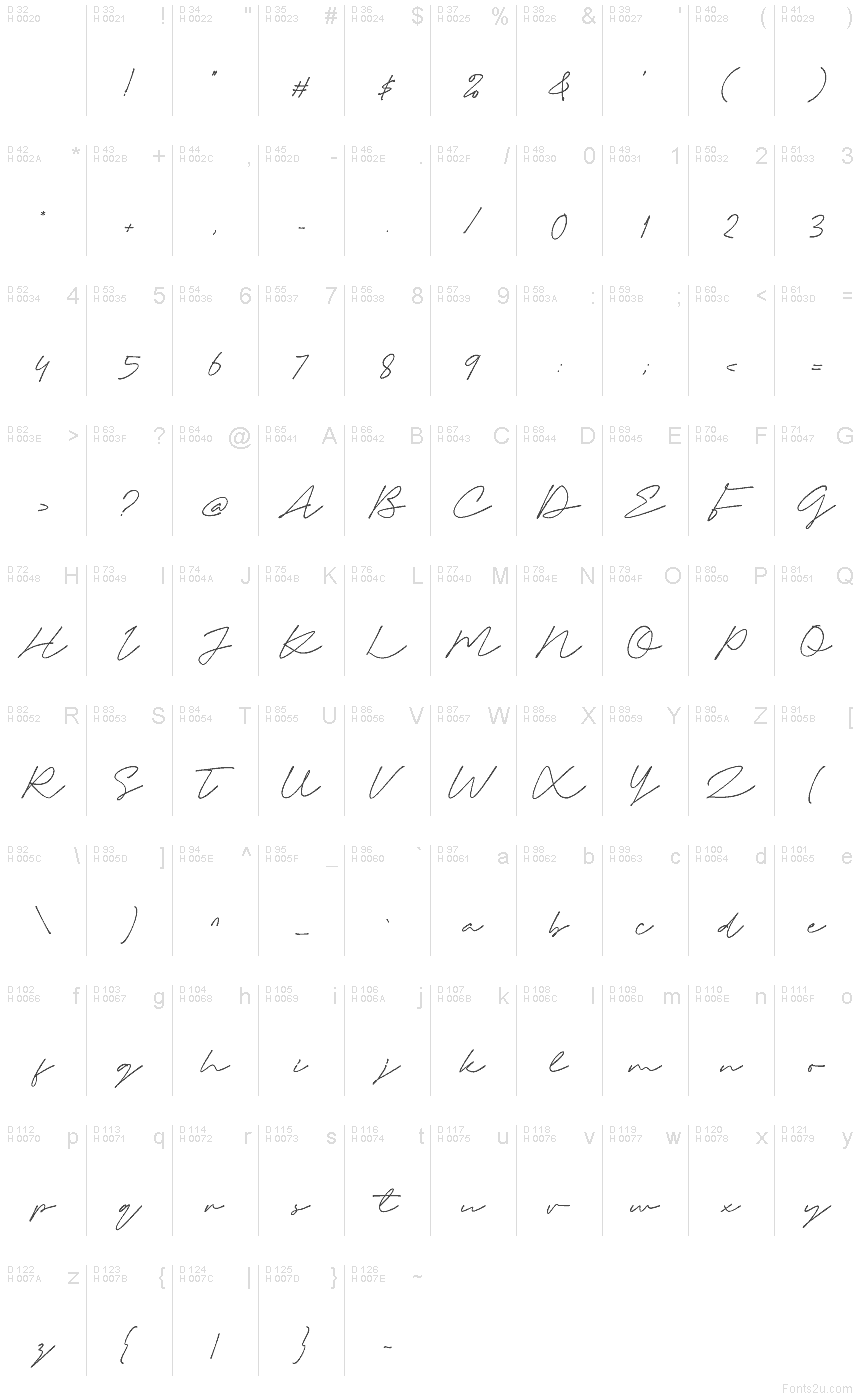
Bright Starla
Bright Starla font by Namara Creative is a free thin handwritten script font. It stands out with airy, monoline strokes that flow in a gentle rightward slant, like ink pulled by a fine needle. The letters connect with a relaxed rhythm—enough bounce to feel personal, but tempered so names, headlines, and short phrases stay effortlessly legible. Subtle loops and long tails add a whisper of luxury without fussy flourishes.
Using Bright Starla, you’ll shine on wedding suites, boutique logos, beauty packaging, photography watermarks, social posts, invitation headers, and upscale stationery. This free font loves generous white space; set it large with slightly increased tracking. For a clean contrast, pair it with a light geometric sans for body copy.